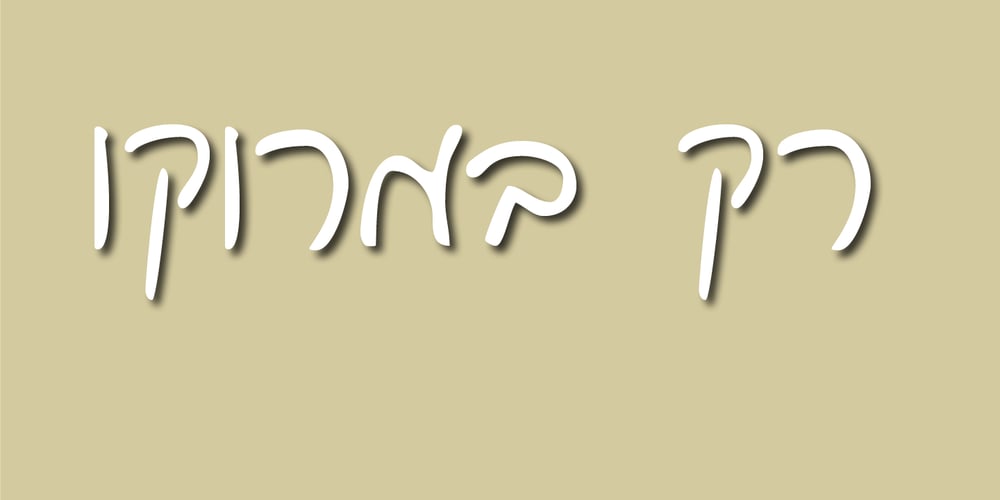
Nechama MF Font Family was designed by Zvika Rosenberg and published by Masterfont. Nechama MF contains 1 styles and family package options. Personal typeface, when you want to effortlessly make your designs stand out with a remarkable clearly crafted handwriting.